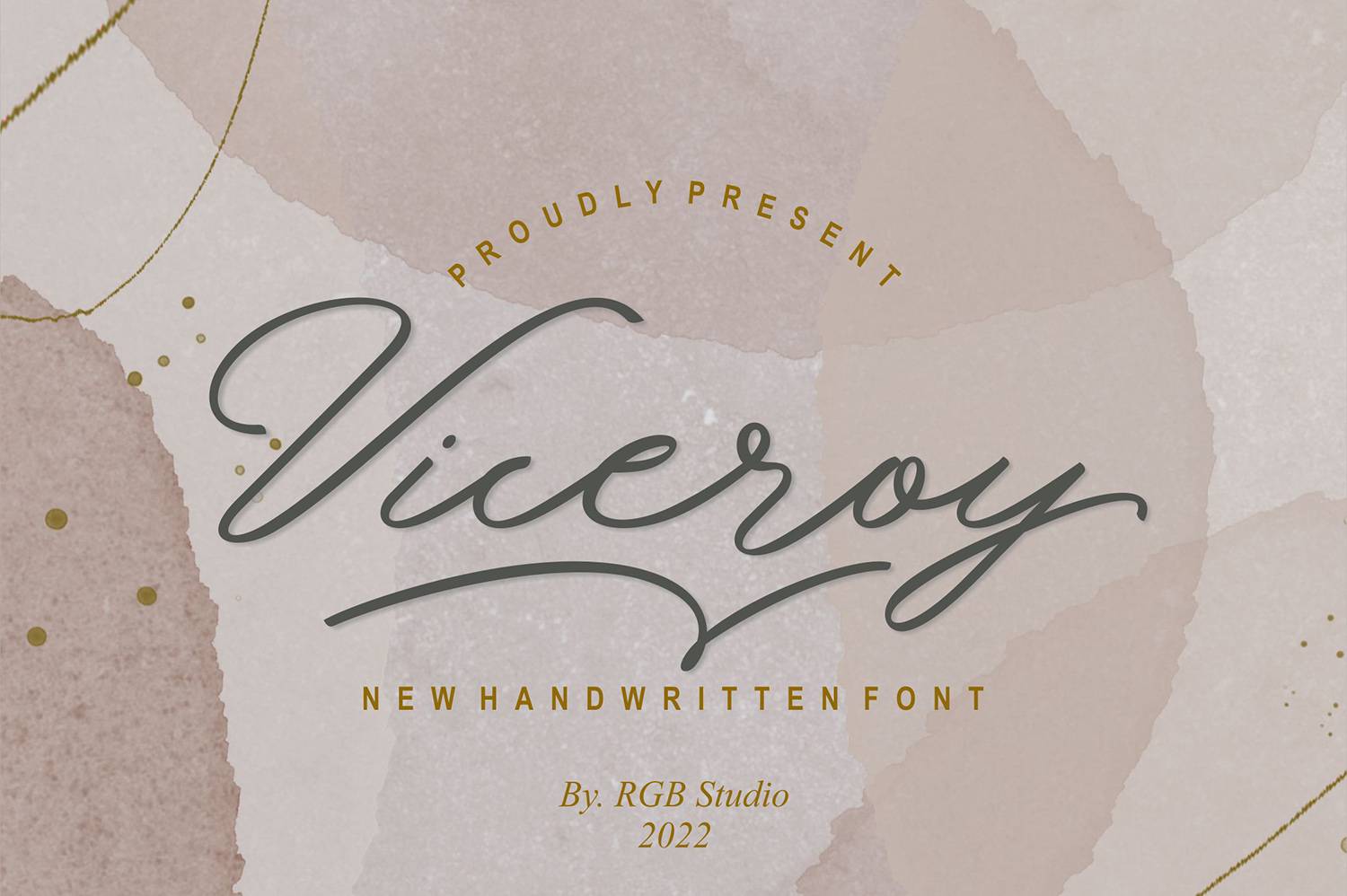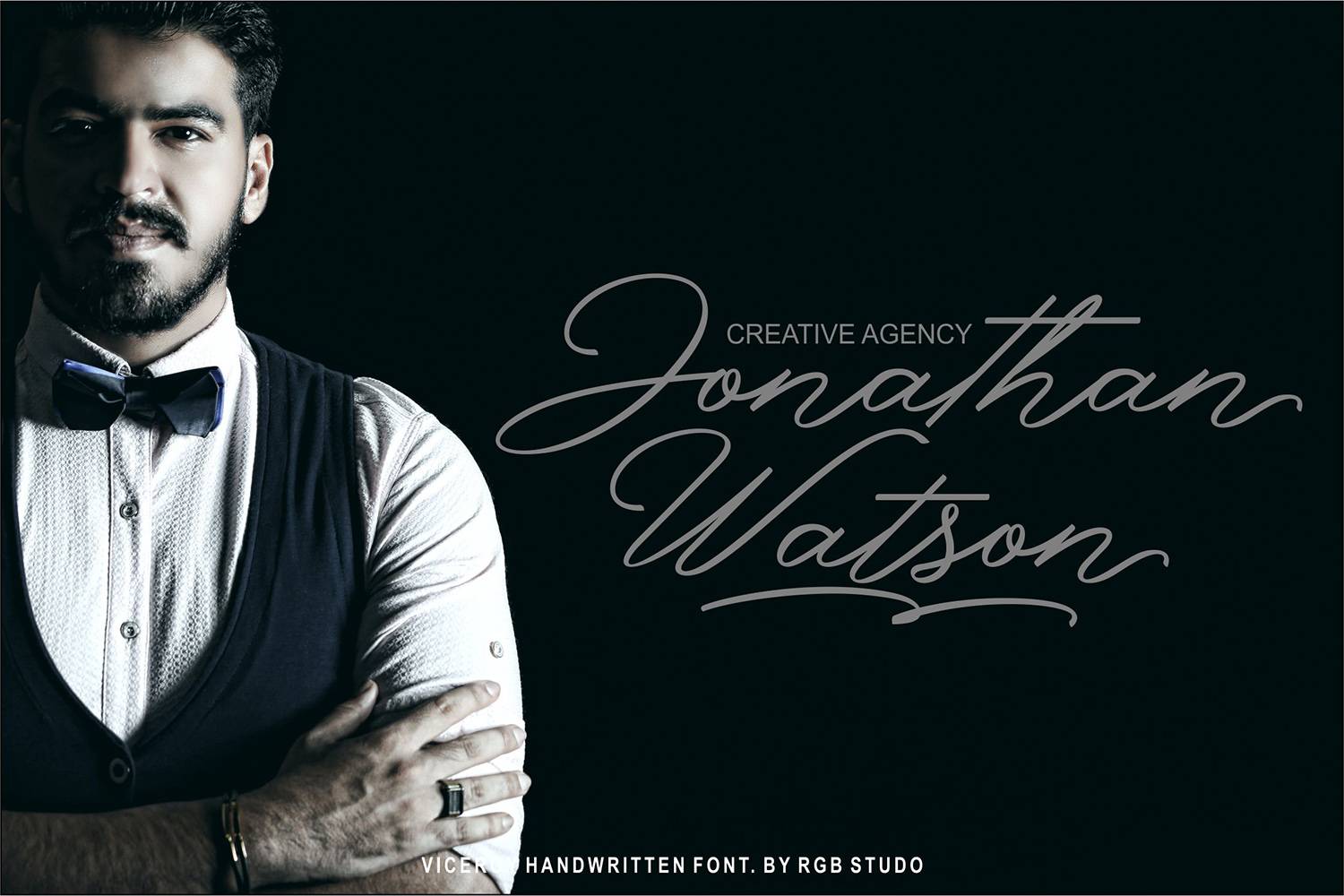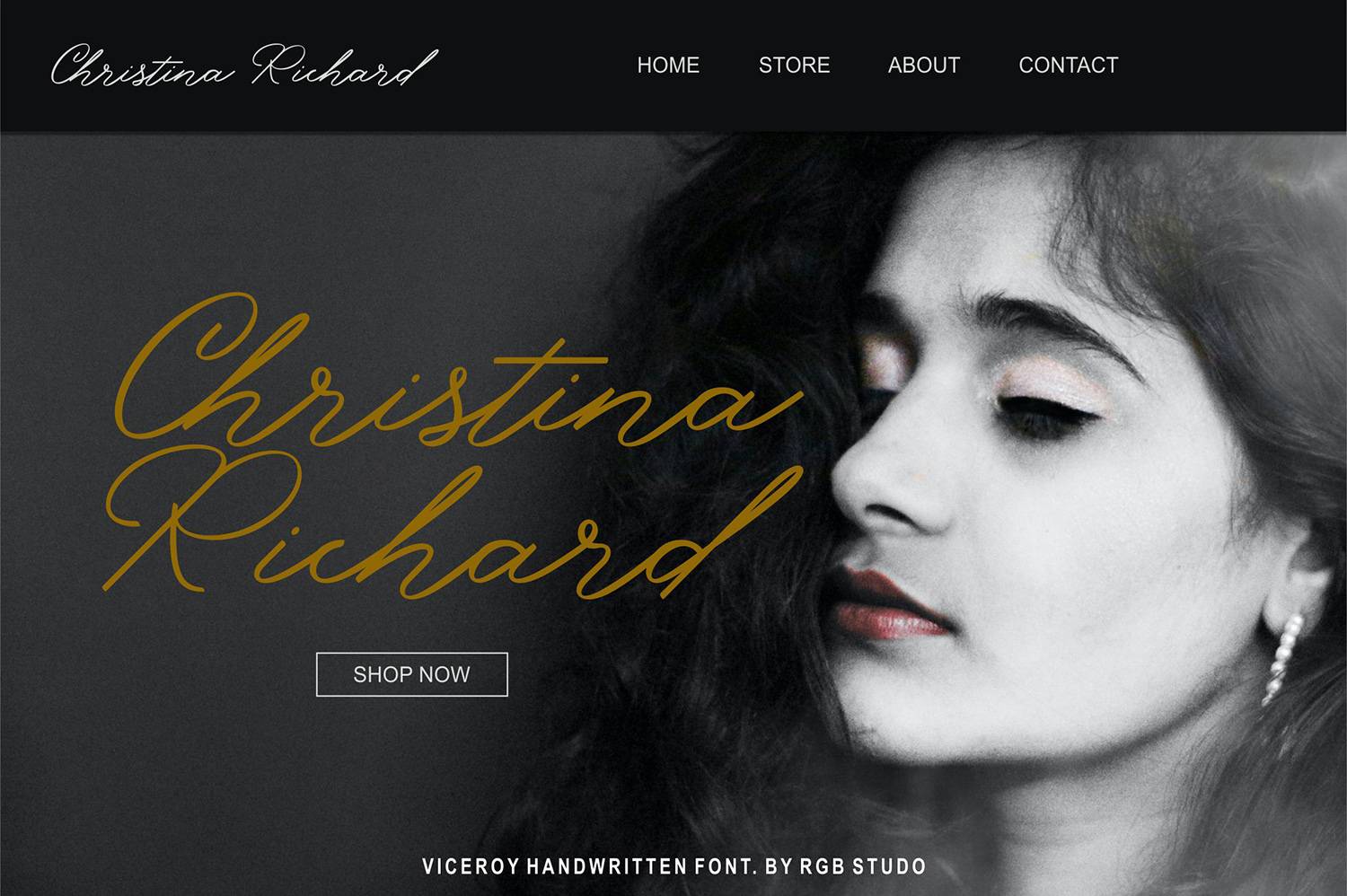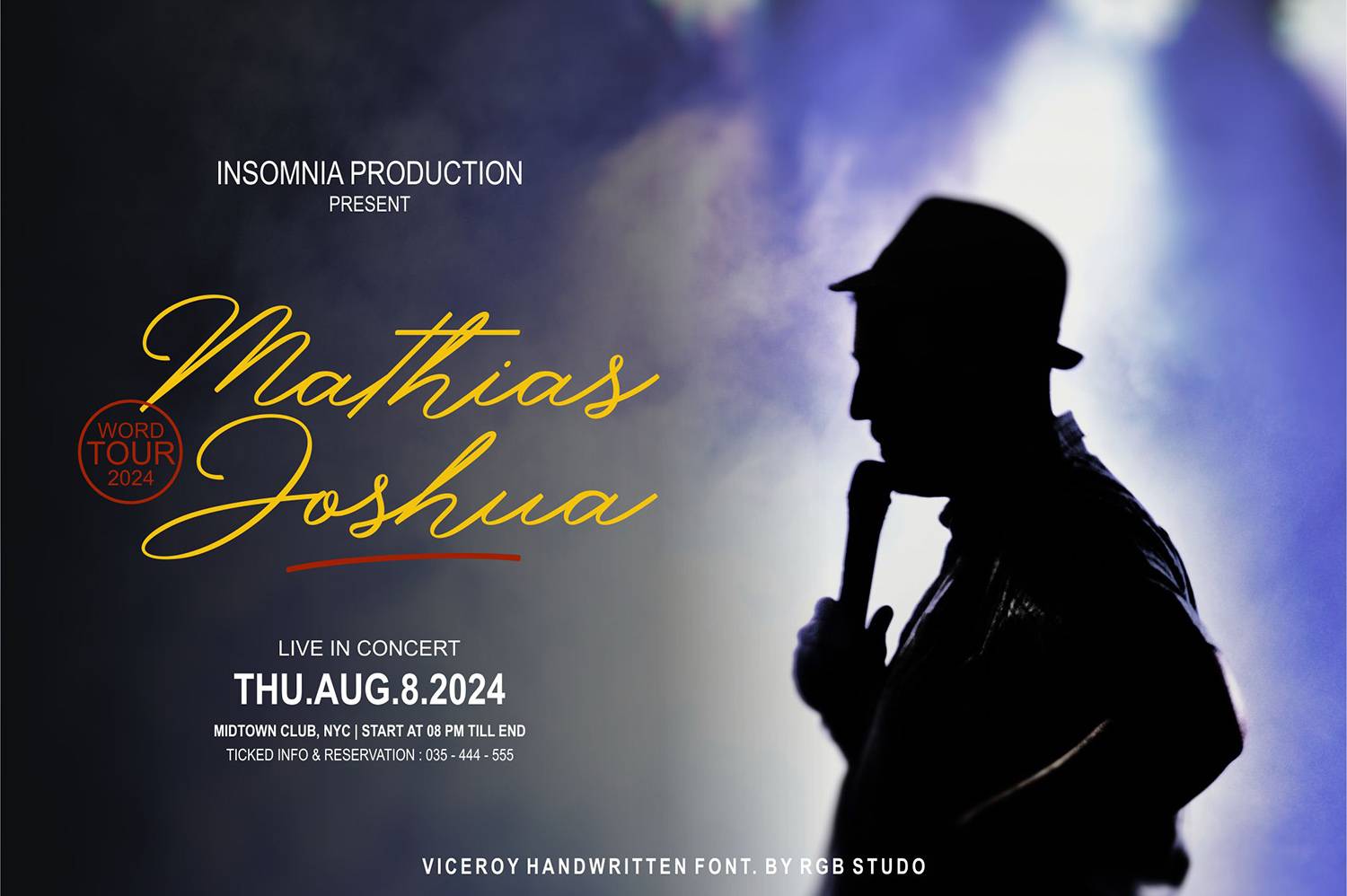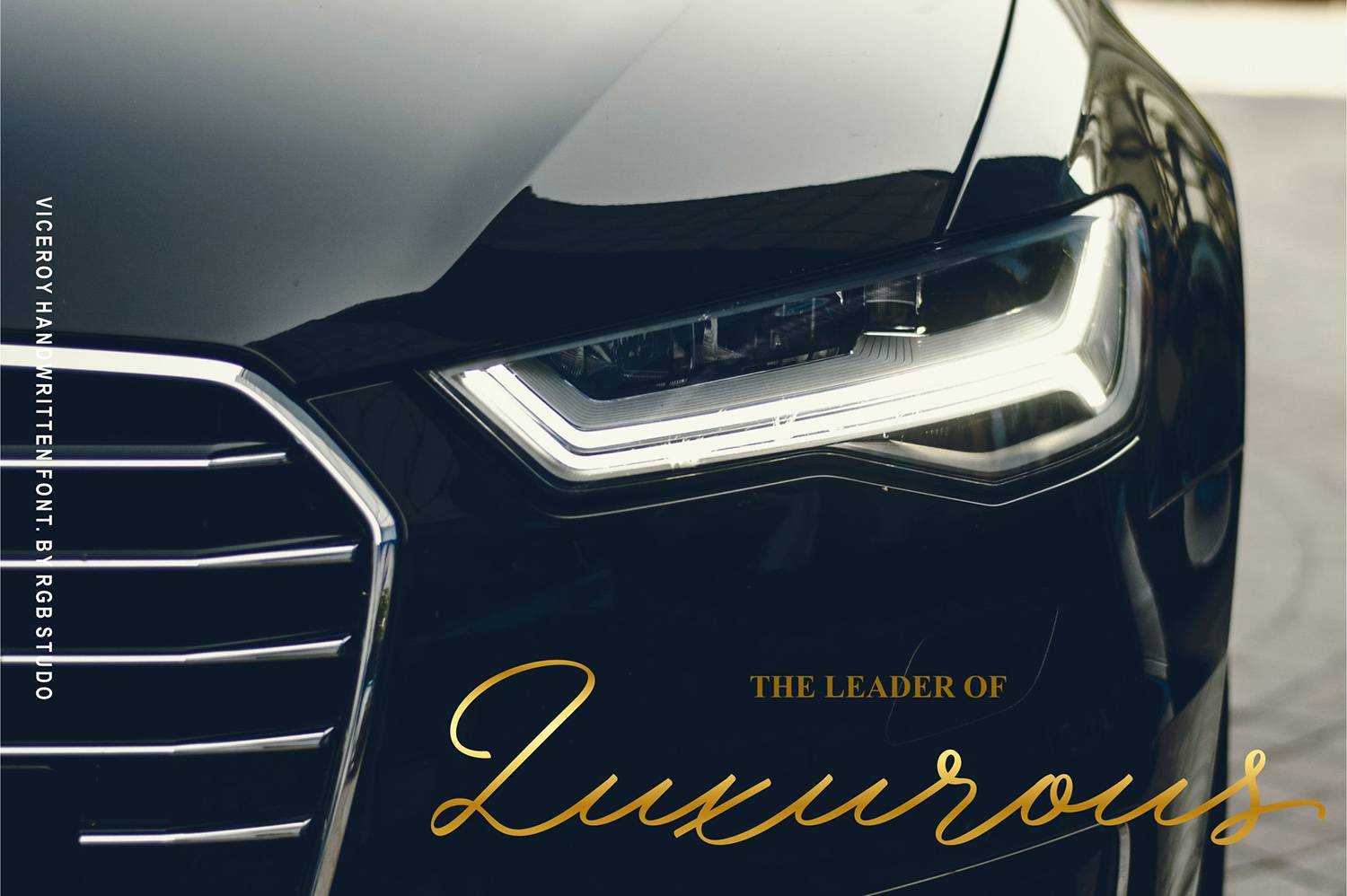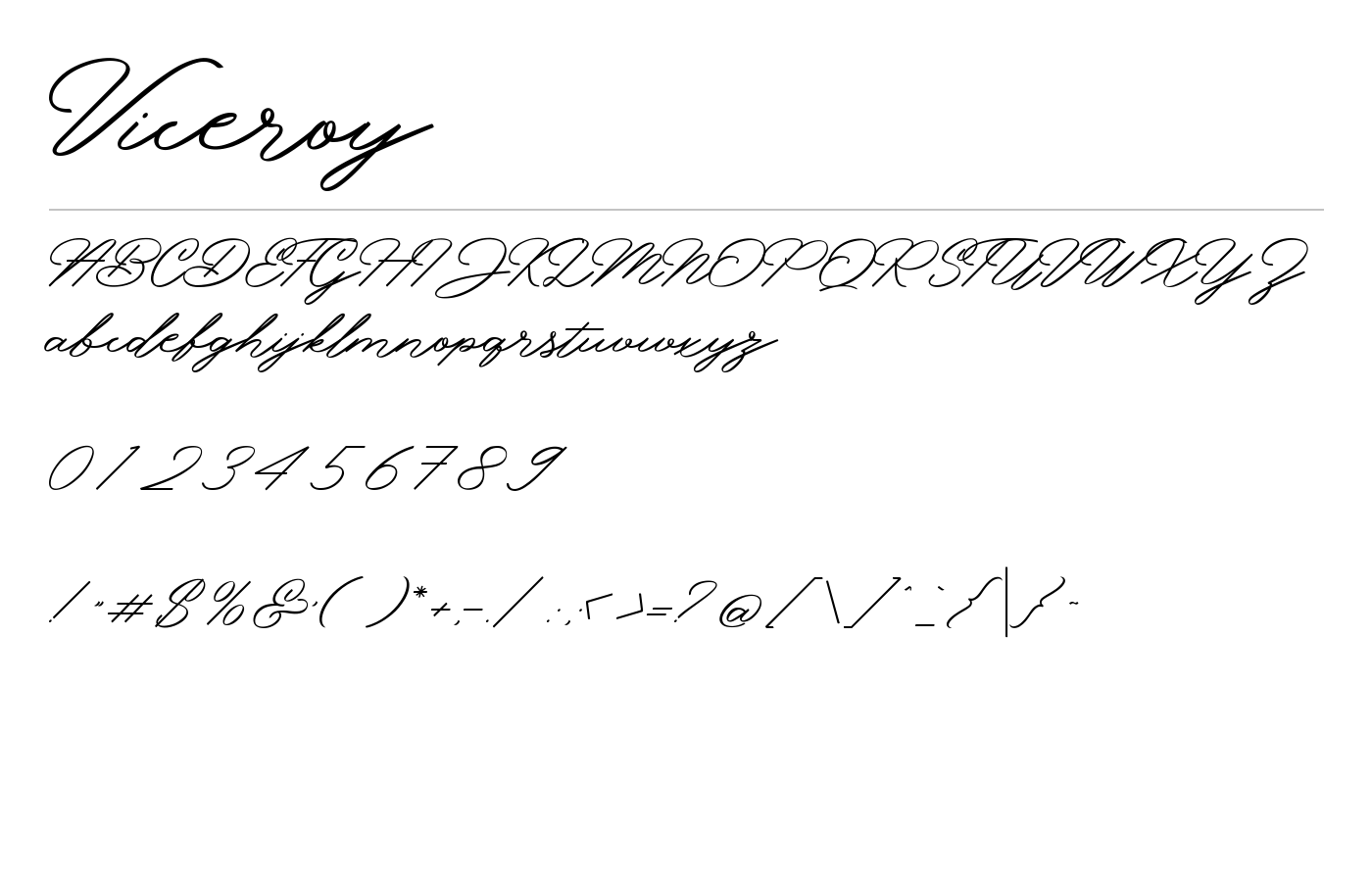
Viceroy is an elegant, delicate script font characterized by its thin strokes and flowing, cursive letterforms that evoke a refined, handwritten style. Its slender, graceful characters and subtle slant make it ideal for sophisticated branding, invitations, and stylish editorial use where a touch of classic charm and femininity is desired. This font works best in display settings, adding a sense of elegance and personal flair to logos, headlines, and luxury packaging.
Viceroy Font
About Viceroy Font
| Font family | Viceroy Font |
| Release date | 2022-08-25 |
| Designer | MOH. MA'IN |